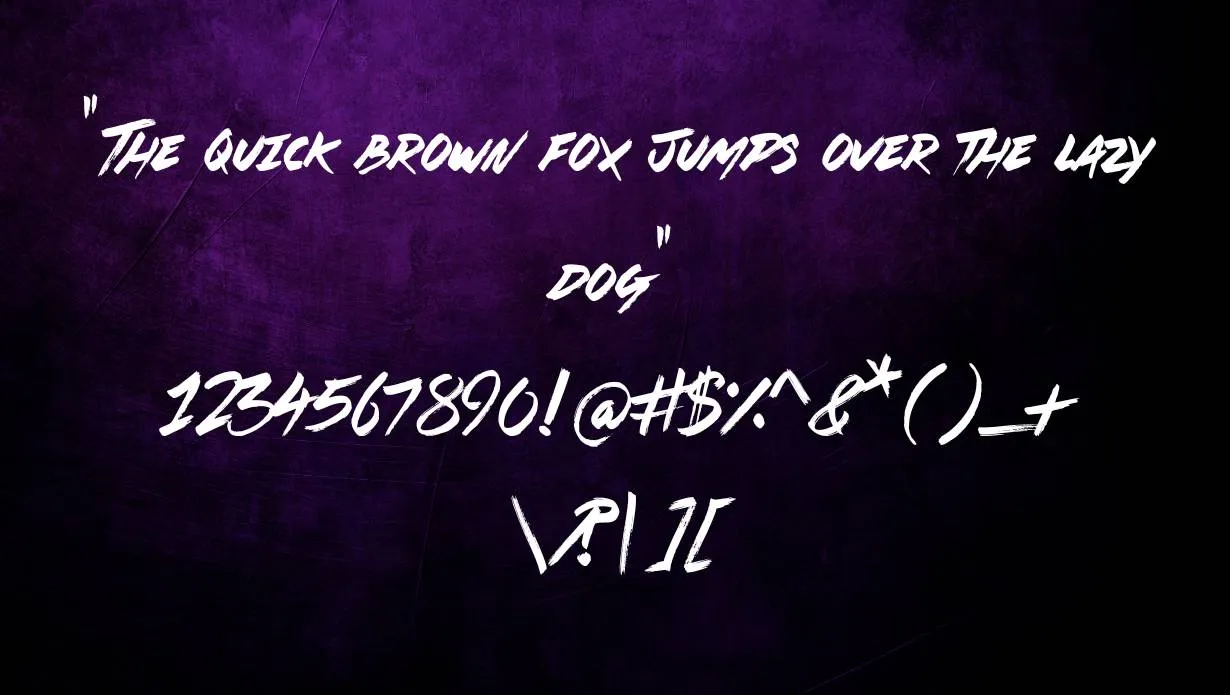
The Great Beast Font roars into your designs with bold and powerful characters, making a statement that cannot be ignored. Ideal for headlines or projects that demand strength, its mighty characters add a sense of grandiosity.
| Name | Great Beast Font |
| Designer | JSH creates |